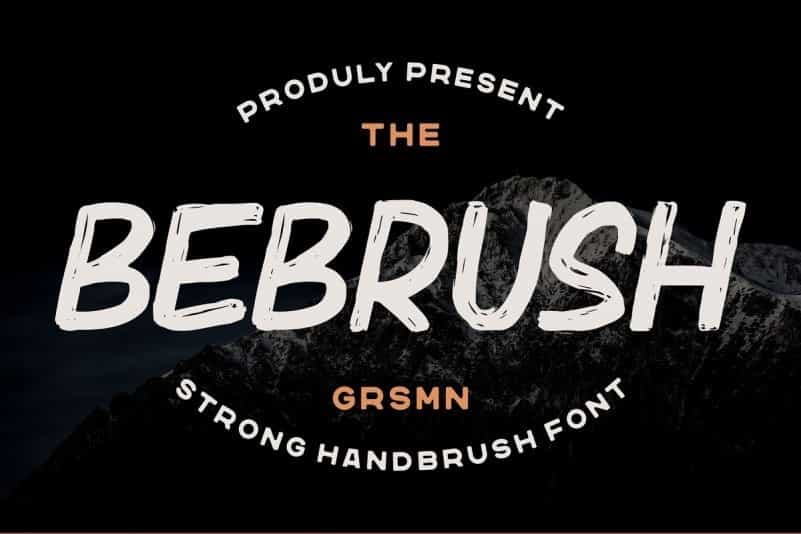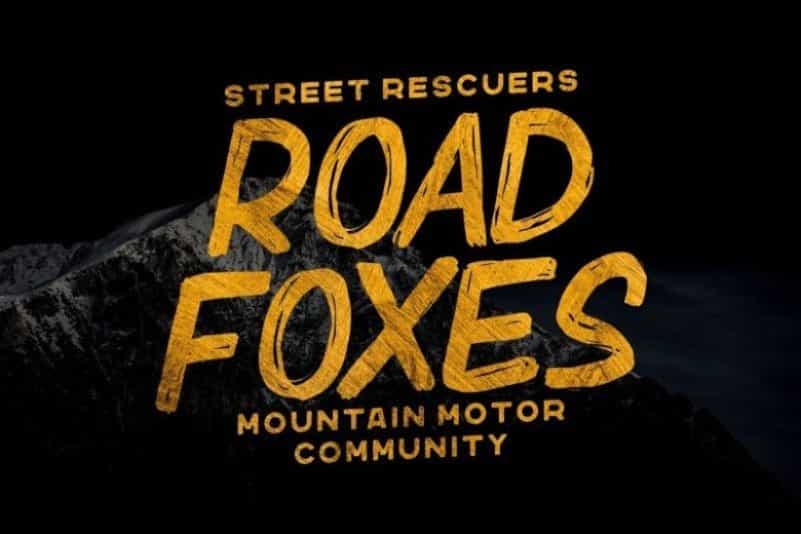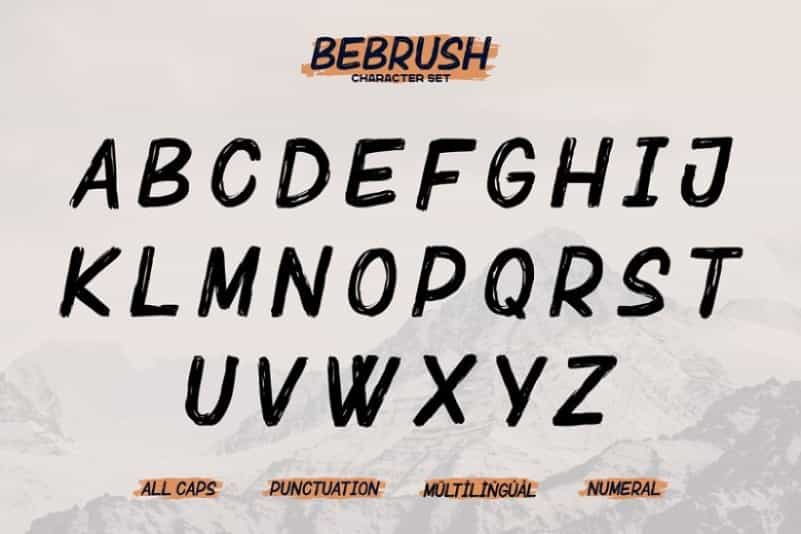
Bebrush, a hand brushed font, combines smooth curves and a fresh urban feel to produce a unique brush type which is guaranteed to make an impact on your logo designs, brand imaging, handwritten quotes and product packaging, merchandise, social media posts or website ground It’s ideal for a logo, group, poster, batik and the like, album cover, manuscript outline and magazine/advert.